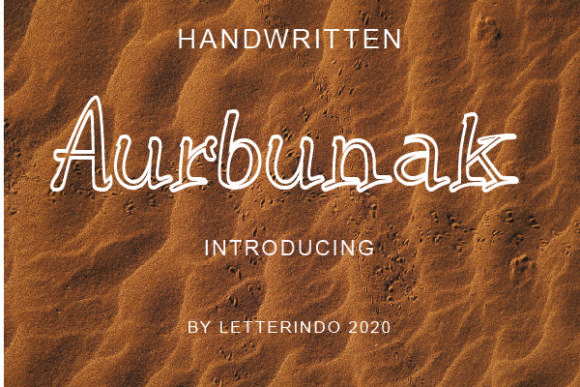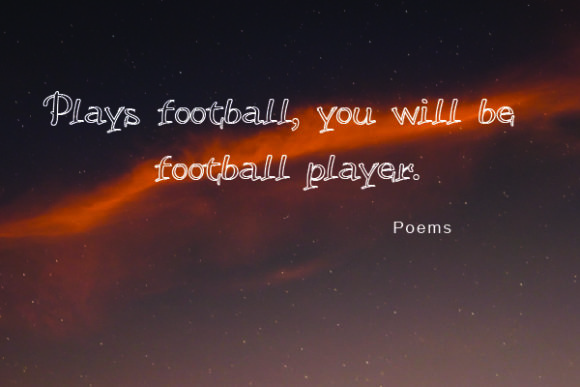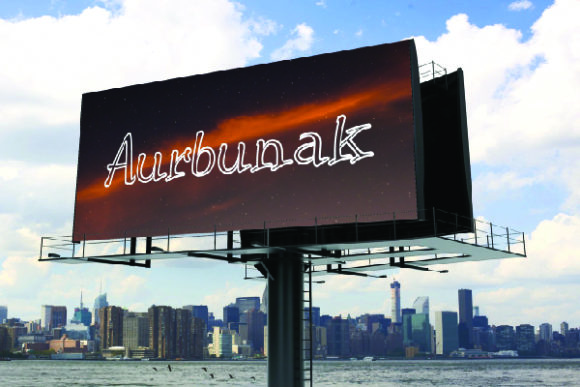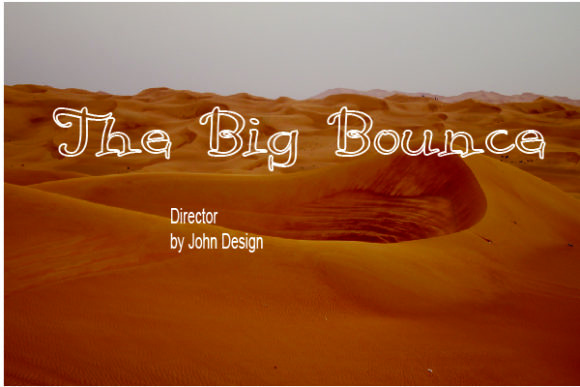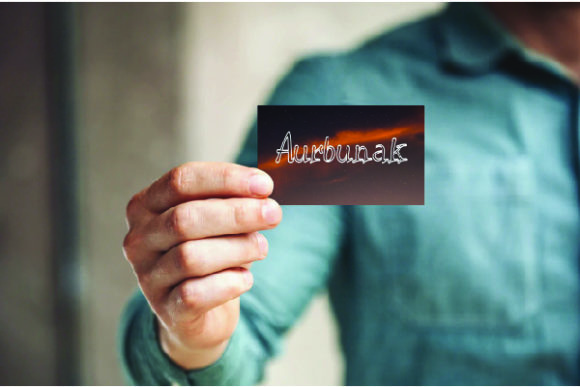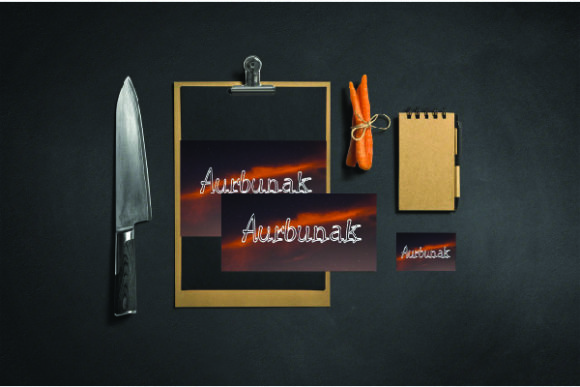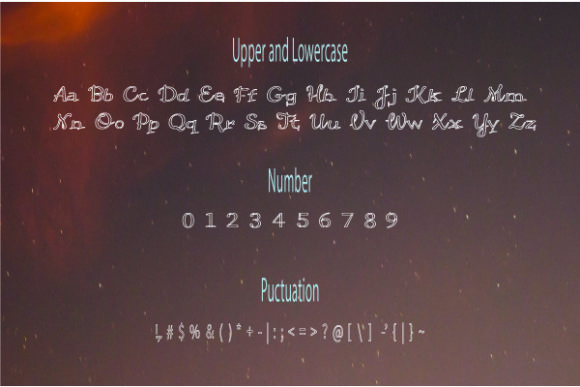
Aurbunak Font
About Aurbunak Font
Aurbunak is a charming handwritten font. The Arbunak will look stunning on wedding invitations, thank you cards, quotes, greeting cards, logos, business cards and every other design which needs a handwritten touch.